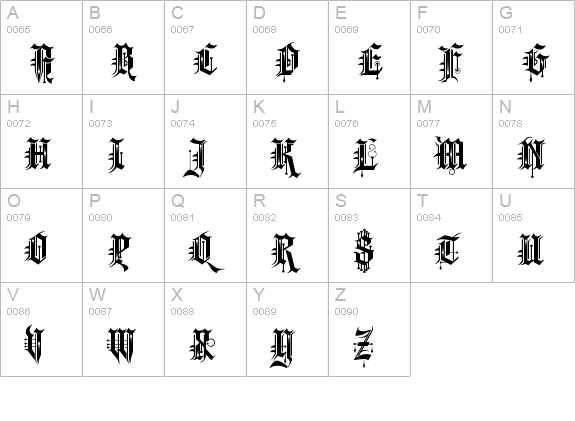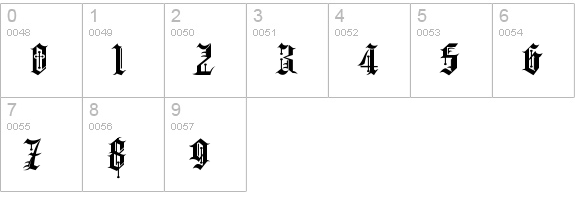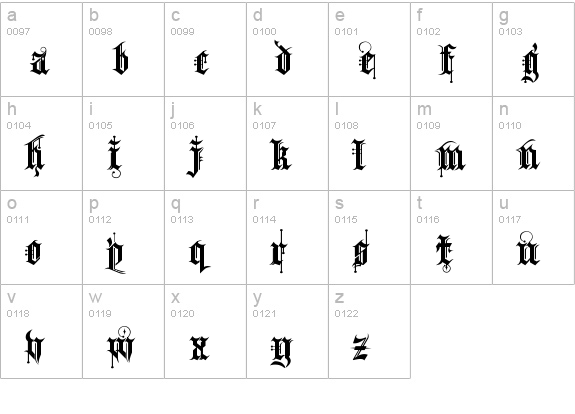
Kingthings Spike Font Details
Kingthings Spike is a captivating and edgy font that effortlessly blends modernity with a touch of rebelliousness. With its sharp and jagged letterforms, this typeface exudes a sense of strength and power, making it ideal for projects that require a bold statement. Designed by the talented font designer, Kingthings, this font is a testament to his exceptional creativity and attention to detail. Each character in Kingthings Spike is meticulously crafted, ensuring a cohesive and harmonious overall design. The unique spikes and angles of the letters add a distinct personality to any text, making it stand out from the crowd. One of the best things about Kingthings Spike is that it is available for free. Yes, you read that right - this exceptional font is freely available to download at FontsMarket.com. Whether you are a professional designer, a student, or simply a font enthusiast, you can easily access and enjoy the beauty of Kingthings Spike without any cost. This font is perfect for a variety of design projects, including logos, headlines, posters, and more. Its versatility allows it to be paired with other fonts or used as a standalone typeface to create stunning visual compositions. Drawing attention with its sharp and daring aesthetic, Kingthings Spike is sure to leave a lasting impression on anyone who encounters it. So why wait? Visit FontsMarket.com today and experience the power of Kingthings Spike. Download it for free and unleash your creativity with this captivating and expressive font.